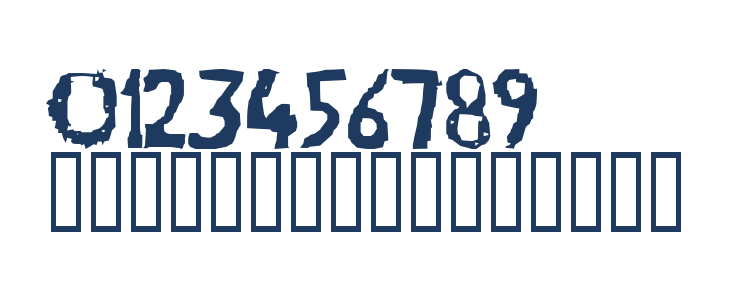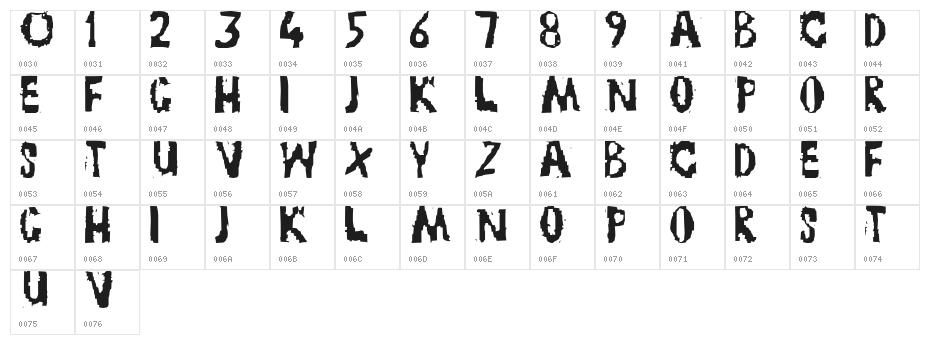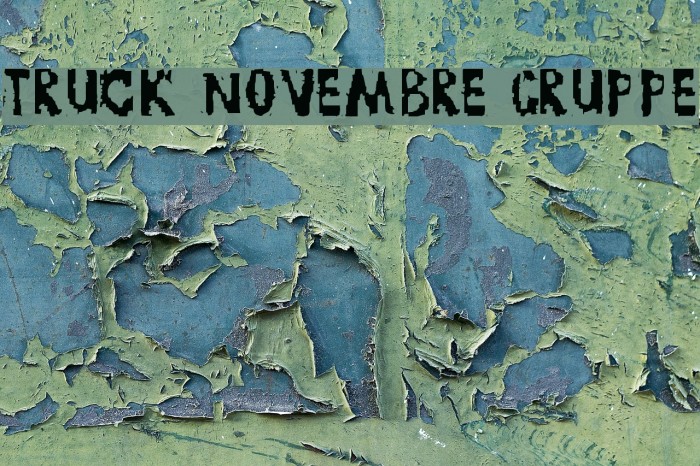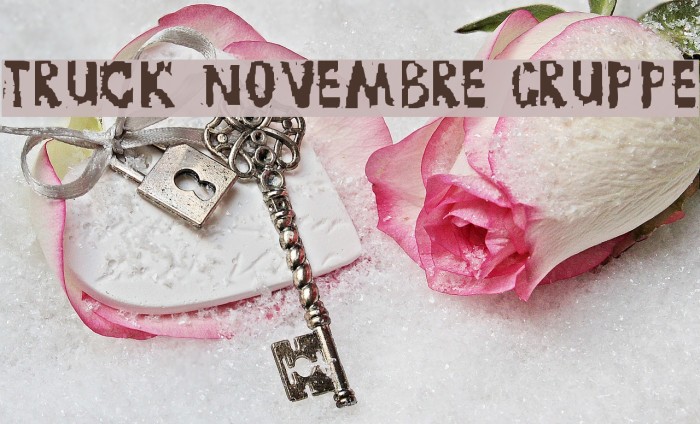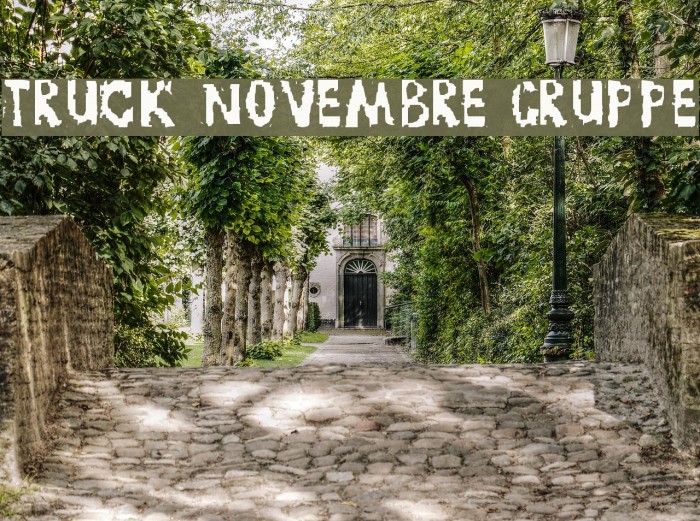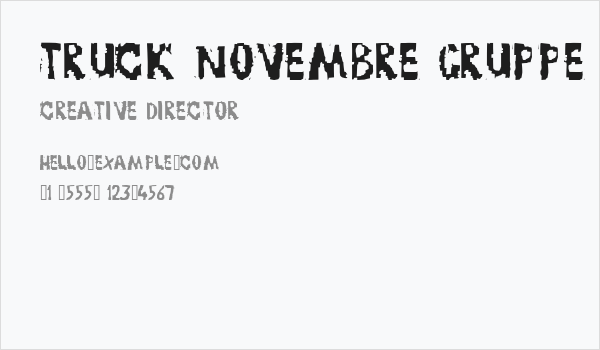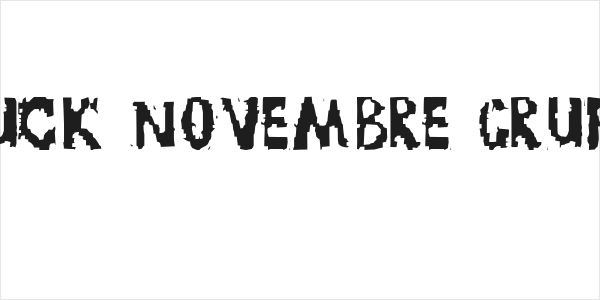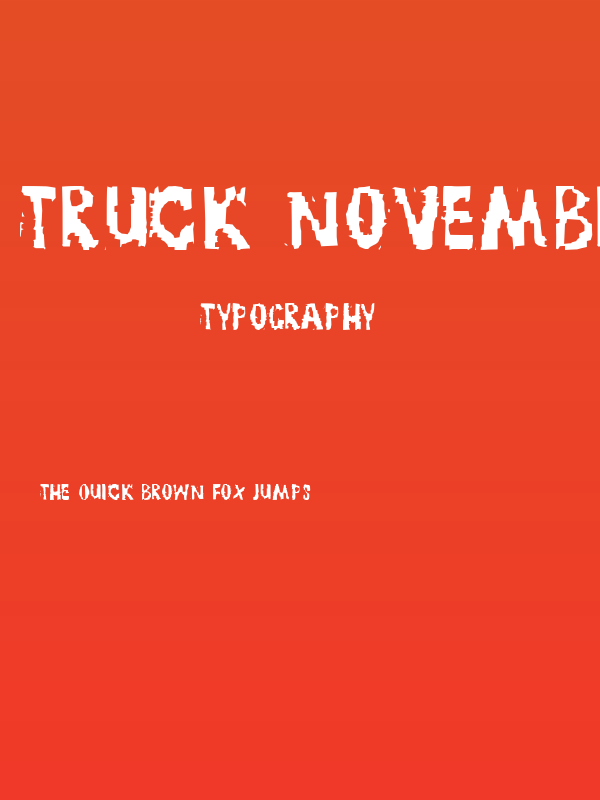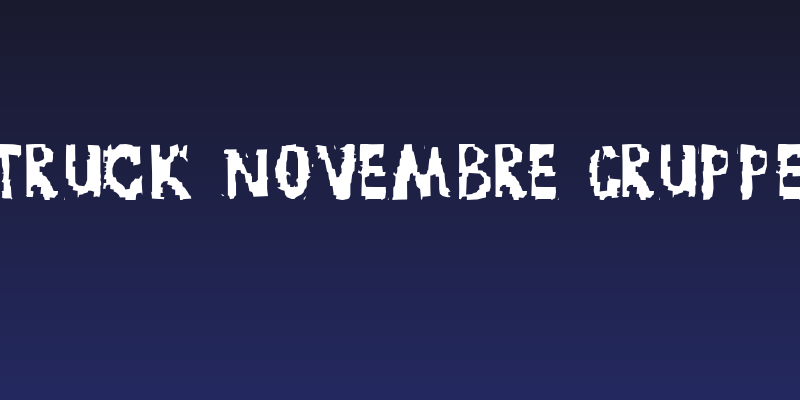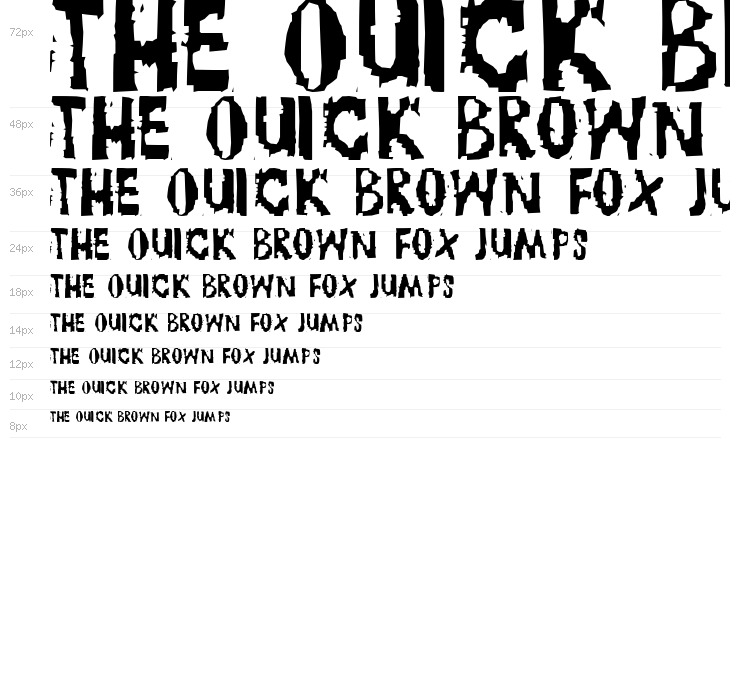
TRUCK NOVEMBRE GRUPPE Font
TRUCK NOVEMBRE GRUPPE Description
This font features a rugged, distressed appearance with irregular edges and a bold presence. The characters are heavily textured, giving them a worn, grunge-like aesthetic that suggests a sense of decay or erosion. The uppercase and lowercase letters maintain a consistent style, with each character appearing as if it has been weathered over time. The numbers follow the same design, ensuring uniformity across all elements. This font's unique style makes it stand out, ideal for projects that require a raw, edgy look.
| Overall Style | Grunge, Urban, Edgy |
| Proposed Projects | Ideal for album covers, posters, streetwear branding, or any project needing a gritty, urban feel. |